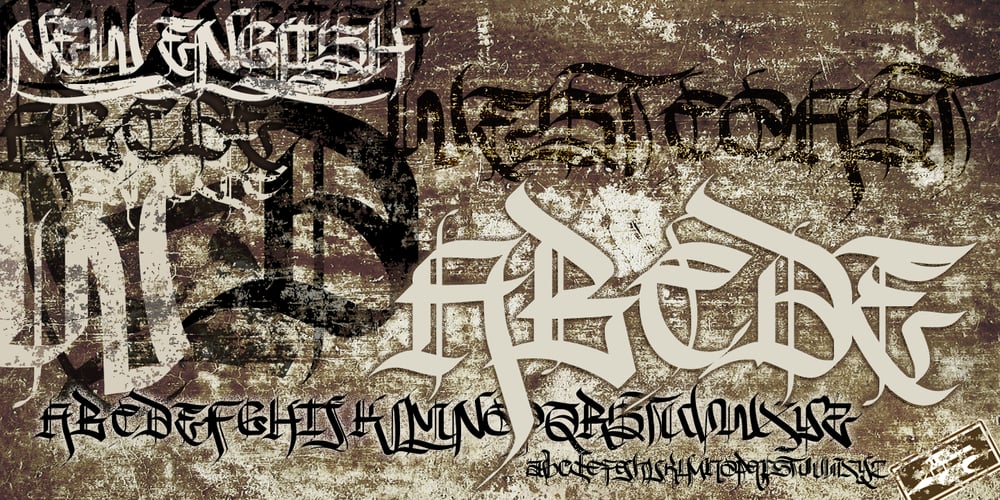
New English Font Family was designed by Matthew Napolitano and published by Graffiti Fonts. New English contains 1 styles and family package options. With 2 full alphabets & a full array of symbols & decorations this style can look elegant or insane. New English is easy to customize for infinite unique looks.